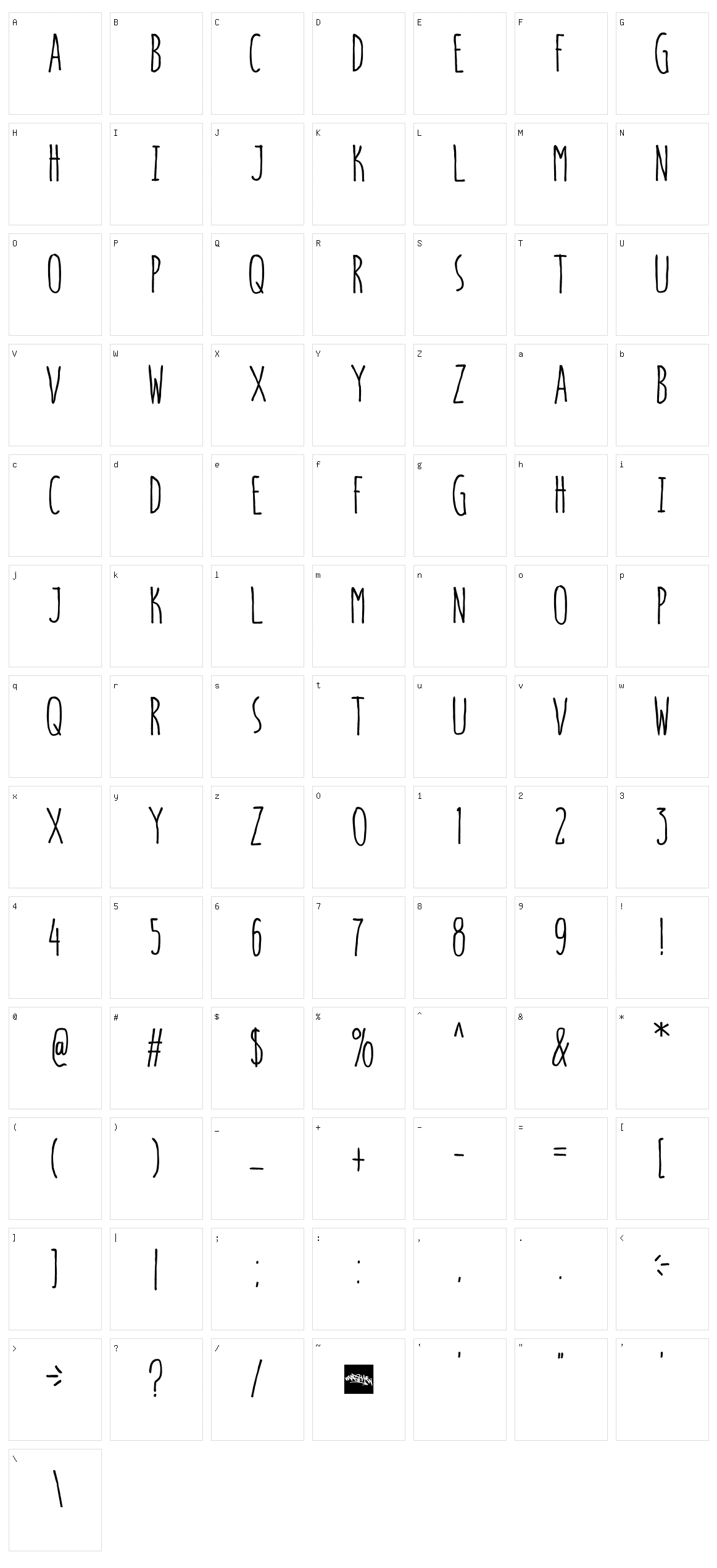
The free font Hello Goodbye is carefully designed by Marsnev?, showcasing a thoughtful balance of creativity and usability and falls under the Script font style. When you download the ZIP file, it contains only 866.45 KB of font files, making it lightweight and quick to download. Please review the license details below to understand permitted usage and distribution rights. If license information is not available, we recommend using this font for personal projects only or contacting the author directly for commercial usage permissions.
this font is made as a tribute to IKMI UI.